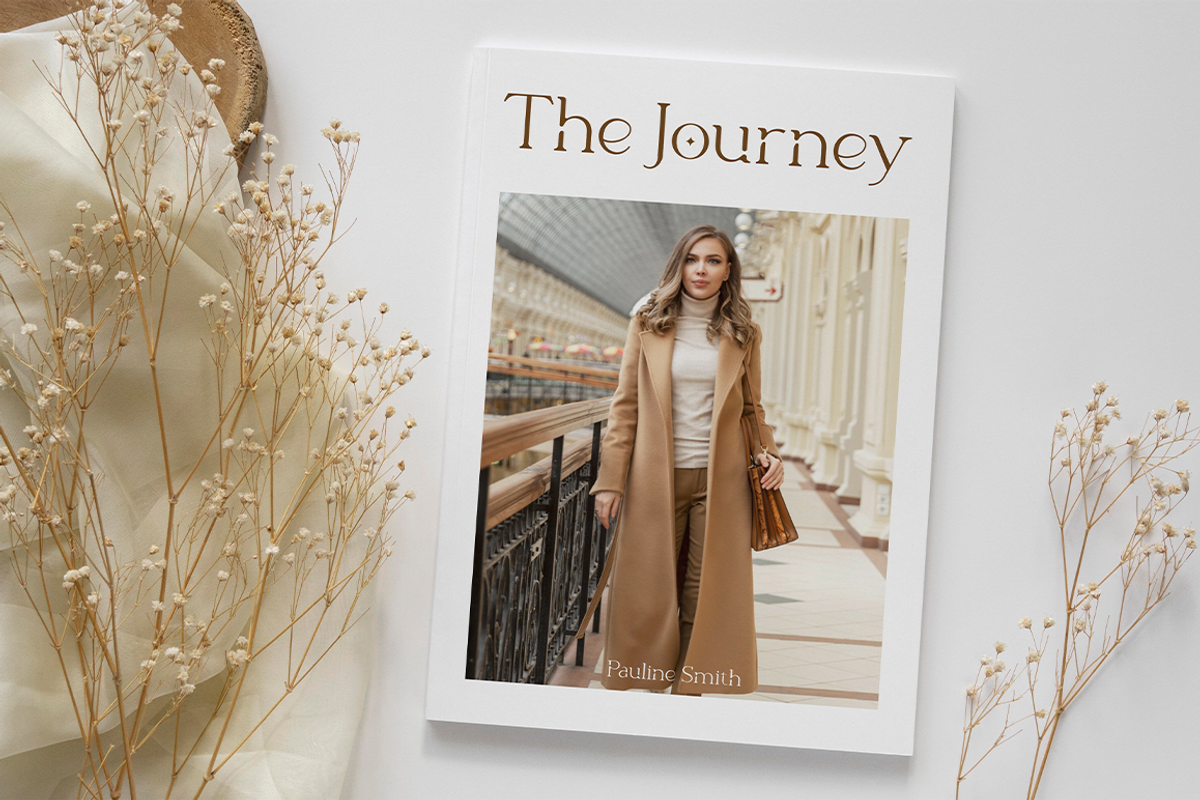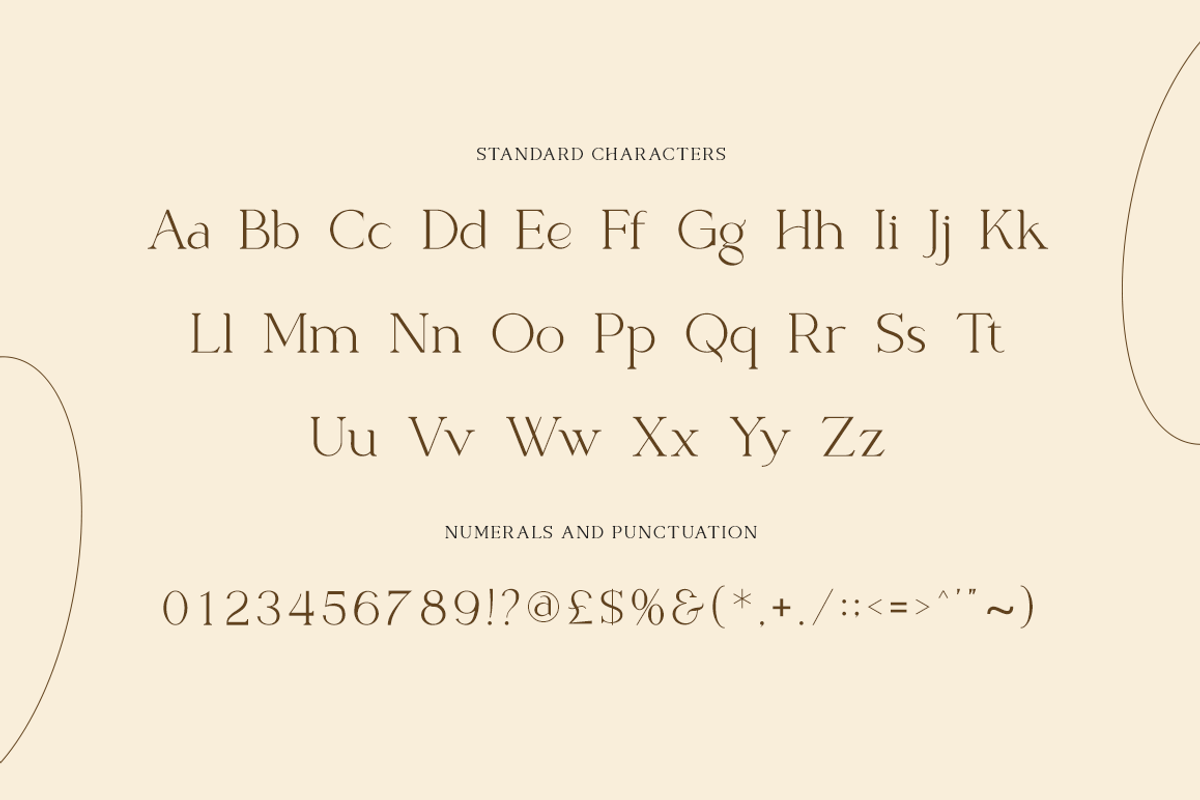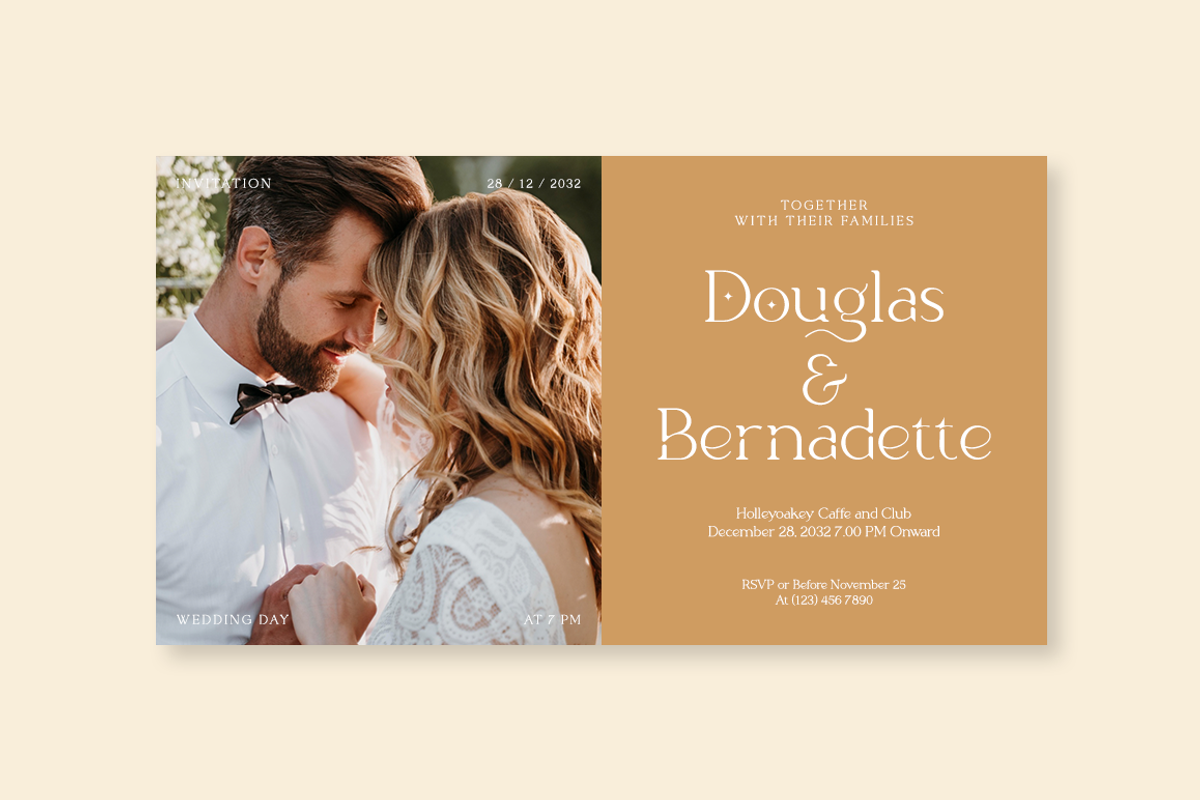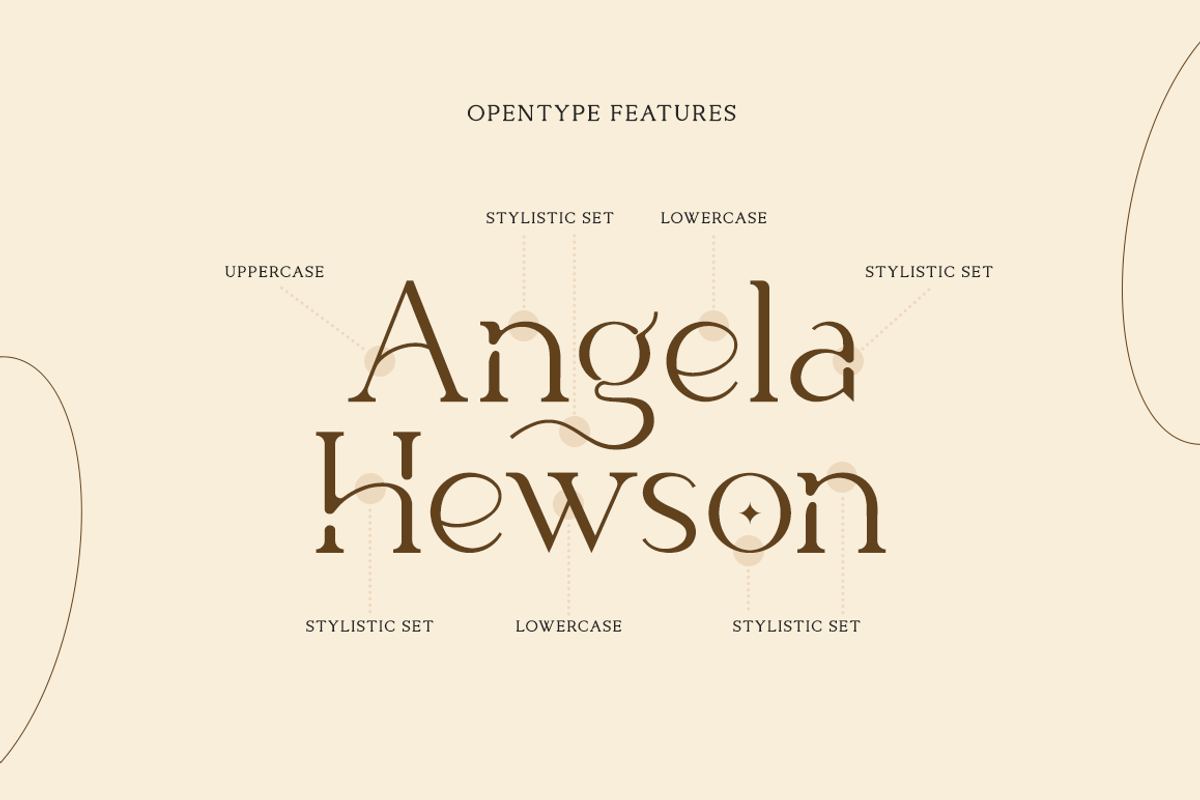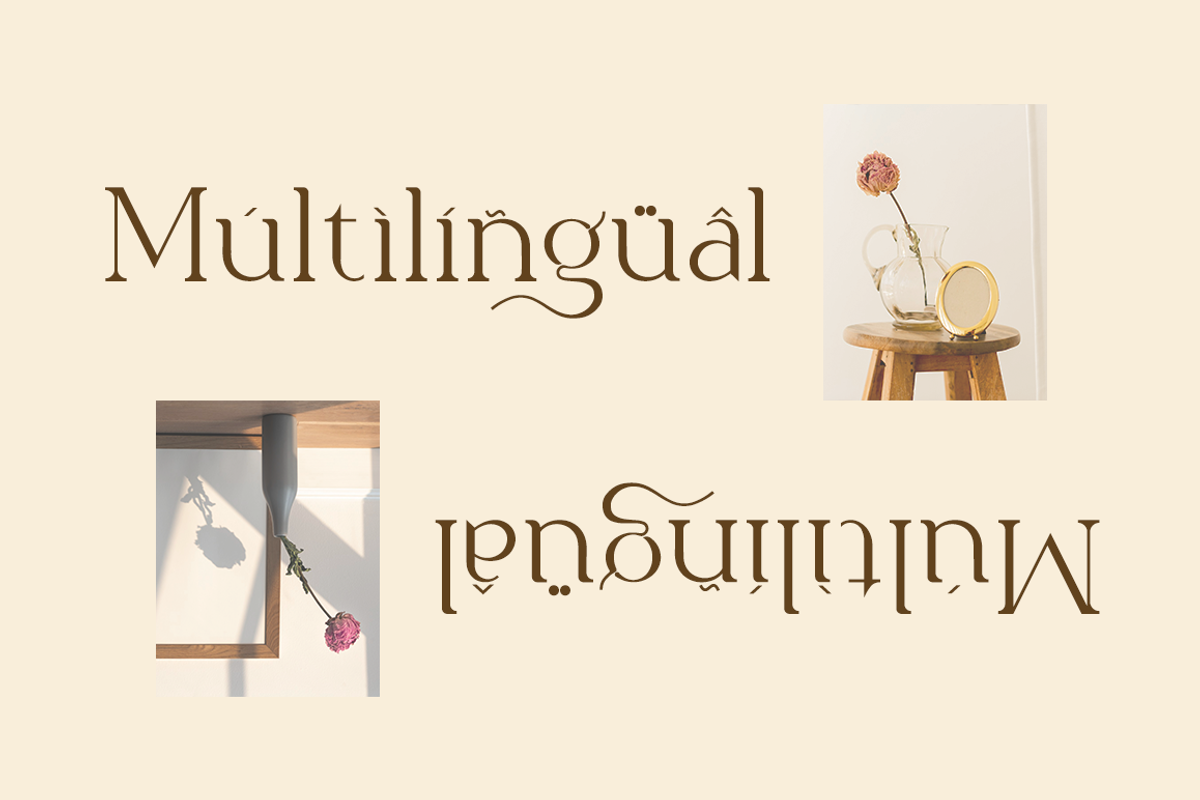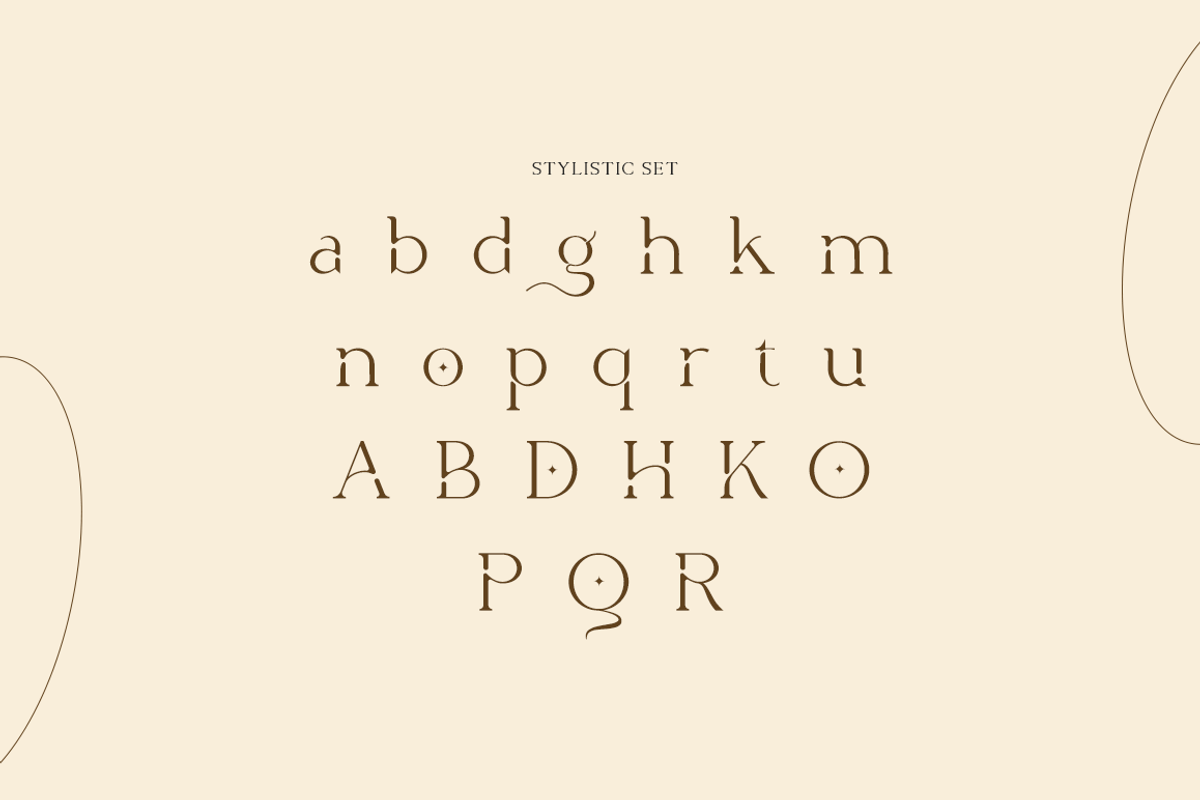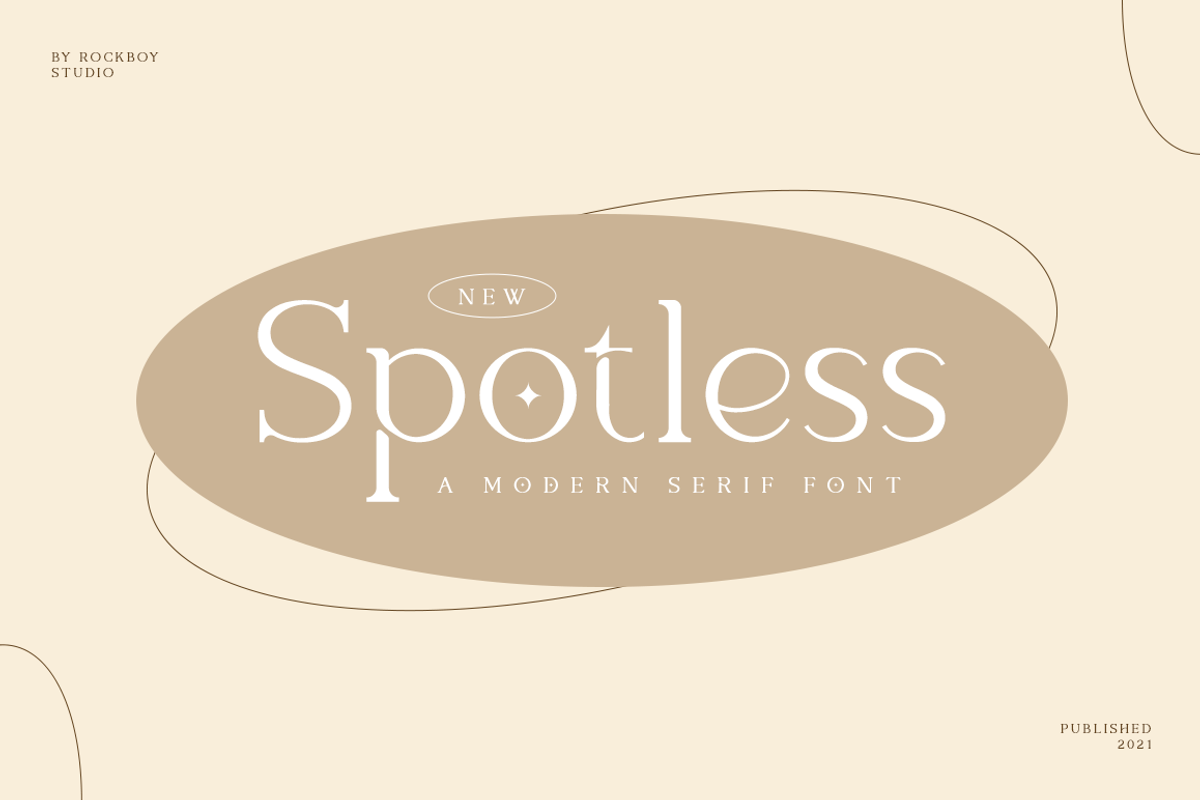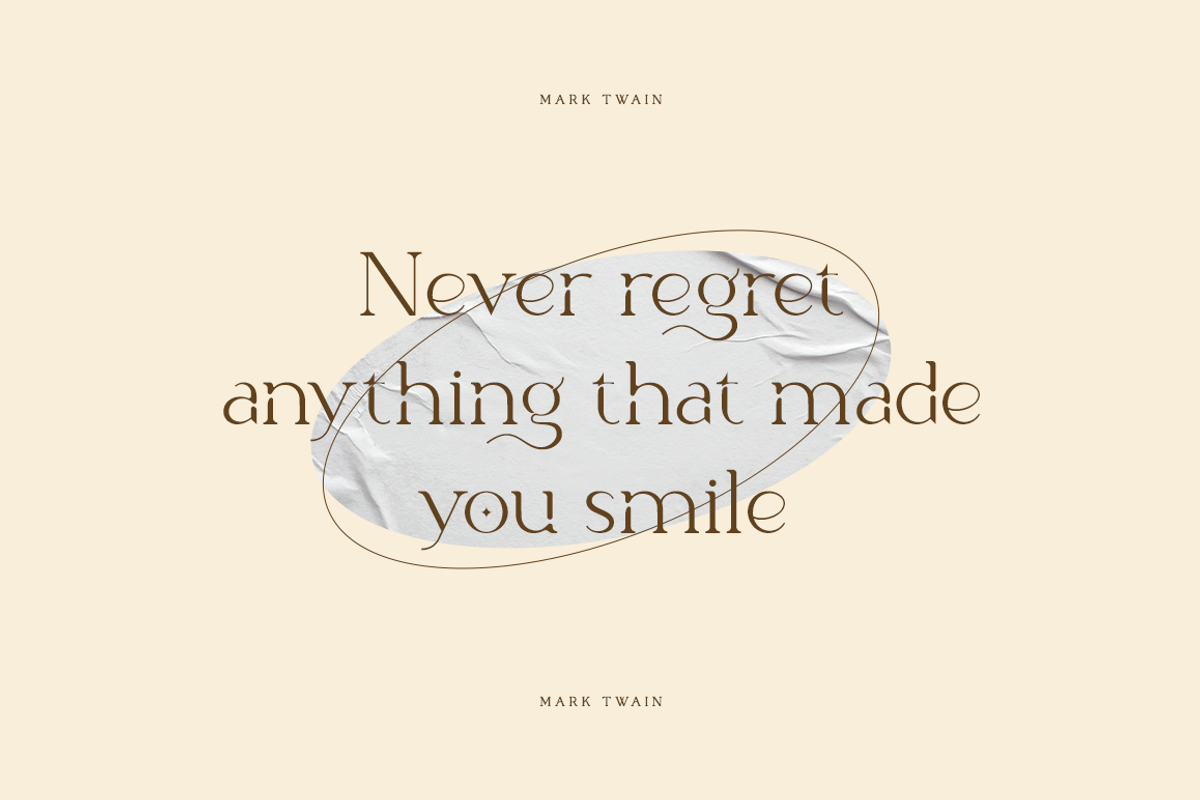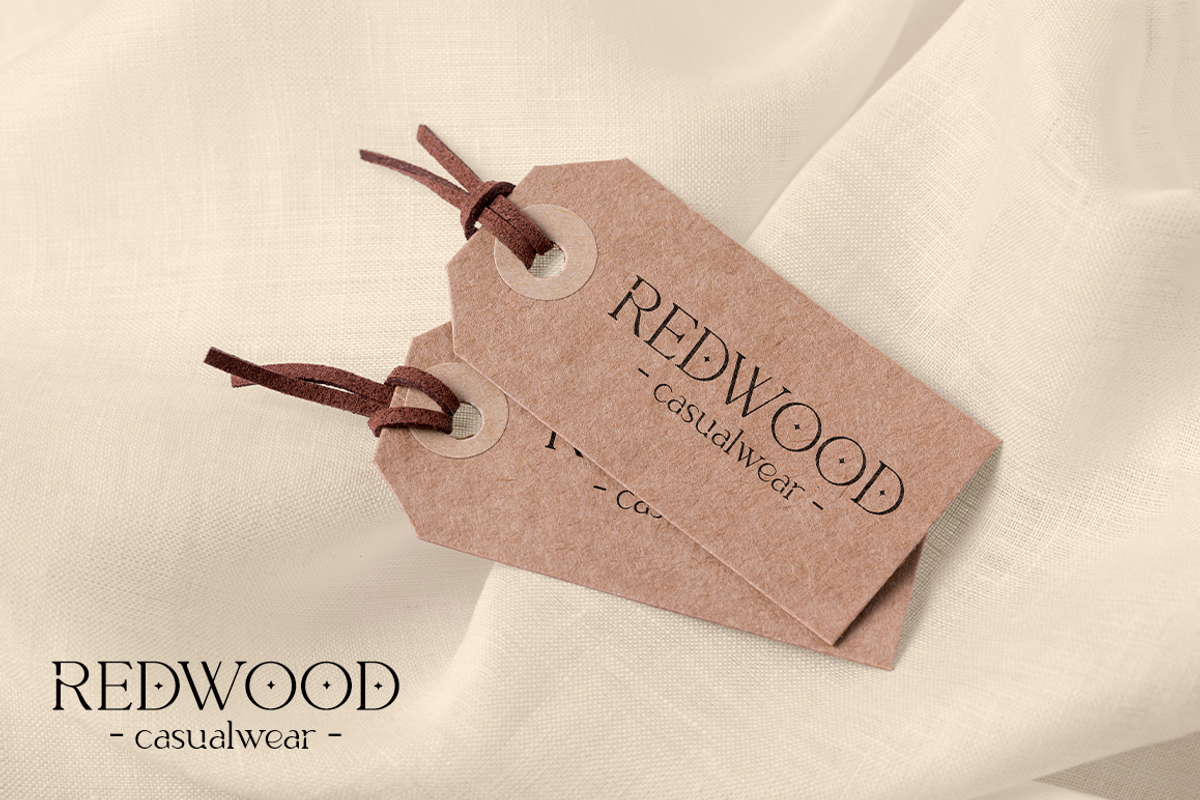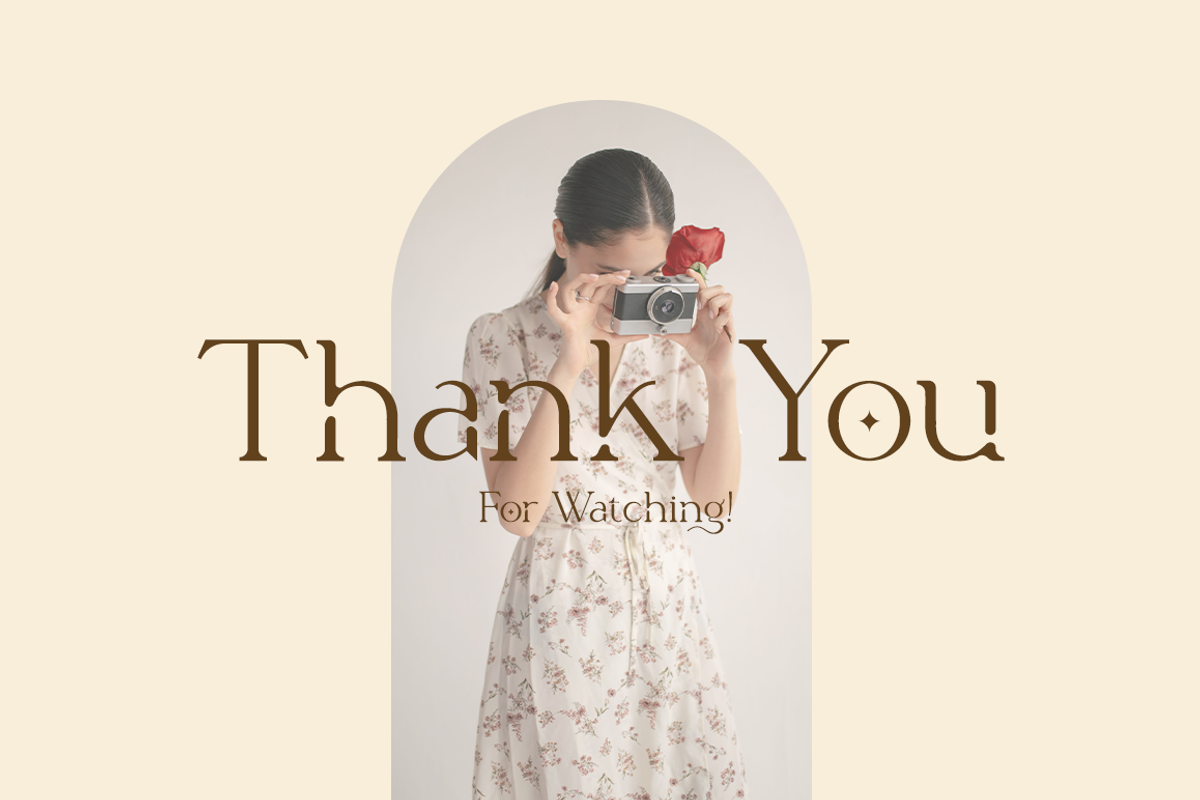
Spotless - Modern Stylish
Spotless is a distinct, elegant, and authentic serif font. Masterfully designed to become a true favorite, this font has the potential to bring each of your creative ideas to the highest level!